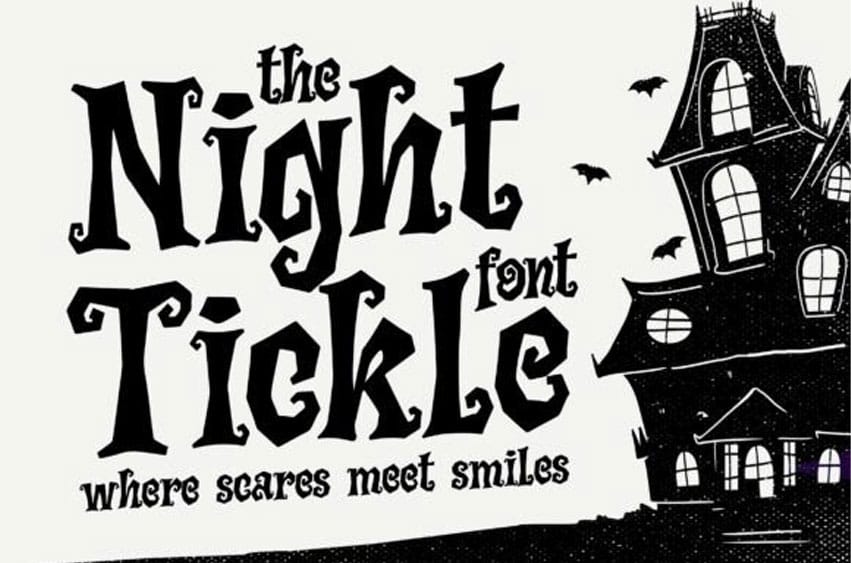
Night Tickle Font is a horror-playful font crafted to bring spooky charm and quirky character to your creative projects. Perfect for logotypes, posters, branding, promotions, product packaging, and more, each letter carries a mischievous, horror-inspired flair that adds both tension and fun to your designs.
This font comes in both .OTF and .TTF formats, and includes a complete set of uppercase and lowercase letters, numerals, and punctuation, all styled in a unique horror-playful aesthetic. Whether you’re designing Halloween-themed graphics or playful, creepy branding, Night Tickle is made to stand out with personality.